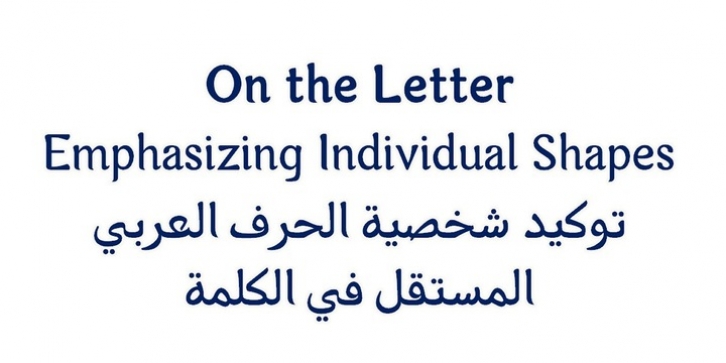
Arabetics Harfi is a Latin Serif typeface with a comprehensive support for the Arabetic scripts, including Quranic texts. Careful spacing and kerning was used to enhance resulting text legibility both scripts. Arabetics Harfi fully supports MS 1252 Western and 1256 Arabic code pages, in addition to all transliteration characters required by the ALA-LC Romanization tables. Users can either select an accented character directly or form it by keying the desired combining diacritic mark following an unaccented character. For Arabic, it fully supports Unicode 6.1, and the latest Arabic Supplement and Extended-A Unicode blocks. The Arabic design of this font family follows the Mutamathil Taqlidi type style with connected glyphs, but it emphasizes a horizontal look and feel rather than verticalone, utilizing slightly varying x-heights. The Mutamathil Taqlidi type style uses one glyph per every basic Arabic Unicode character or letter, as defined by the Unicode Standards, and one additional final form glyph, for each freely-connecting letter of the Arabic cursive text. Arabetics Harfi includes the required Lam-Alif ligatures in addition to all vowel diacritic ligatures. Soft-vowel diacritic marks (harakat) are selectively positioned with most of them appearing on similar high and low levels—top left corner—, to clearly distinguish them from the letters. Tatweel is a zero-width glyph. Arabetics Harfi includes both Arabic and Arabic-Indic numerals, in addition to generous number of punctuation and mathematical symbols. It includes two weights, regular and bold, each of which has normal, right slanted Italic, and left-slanted styles.